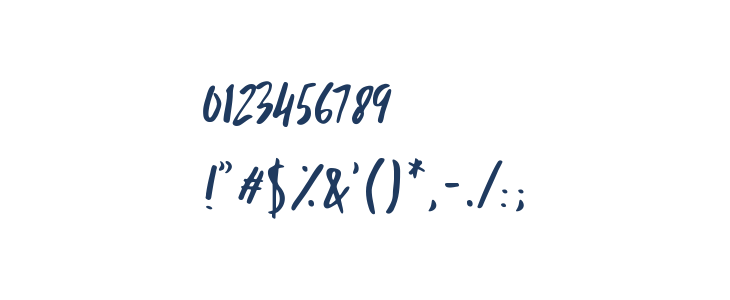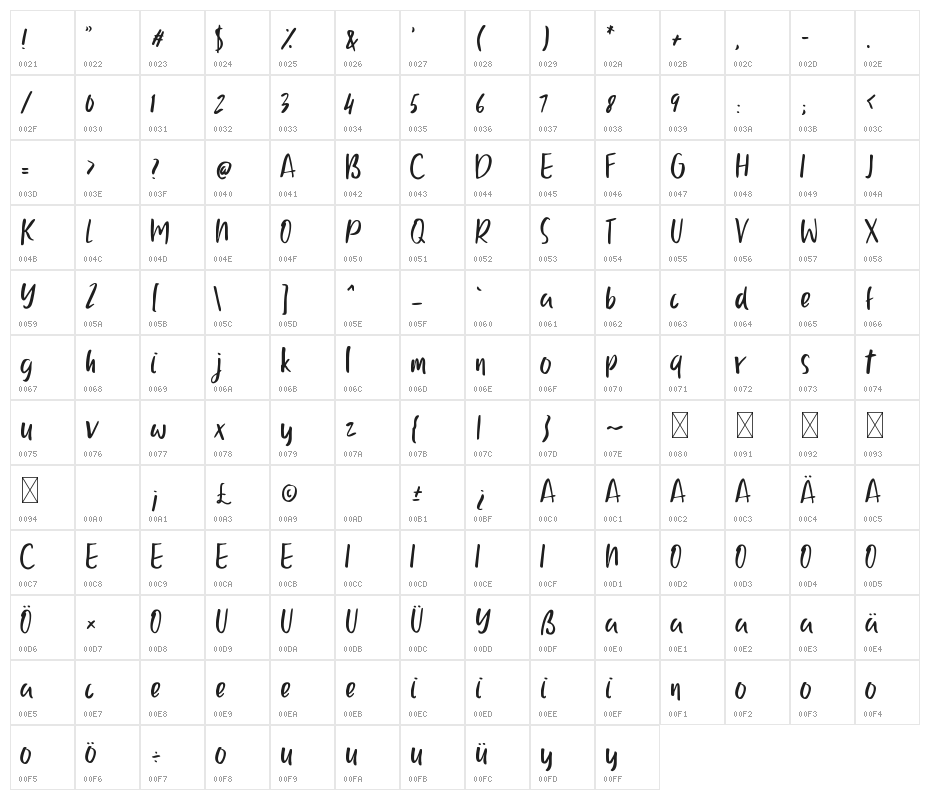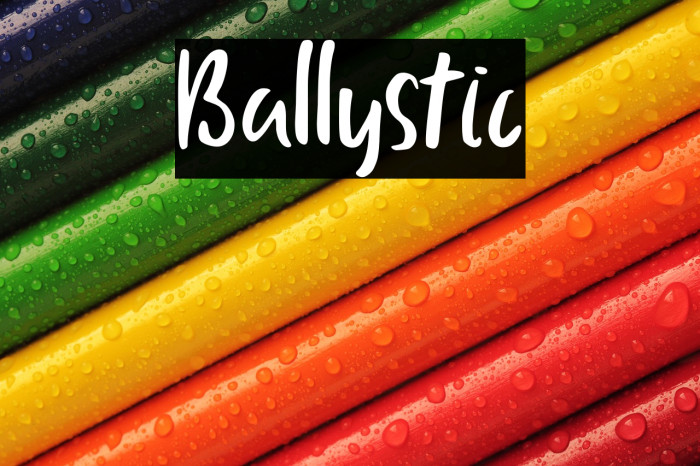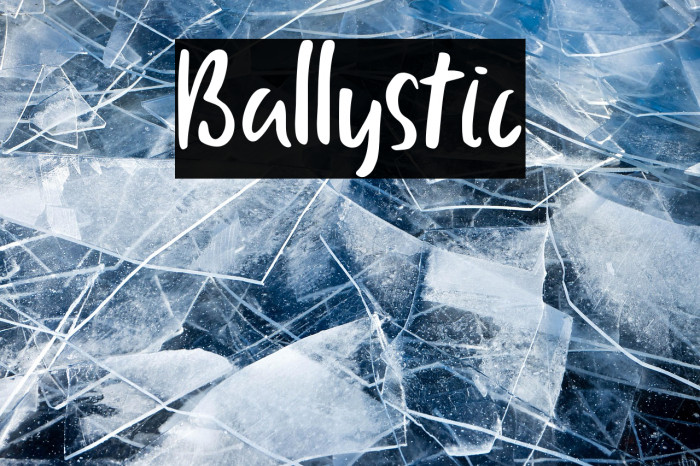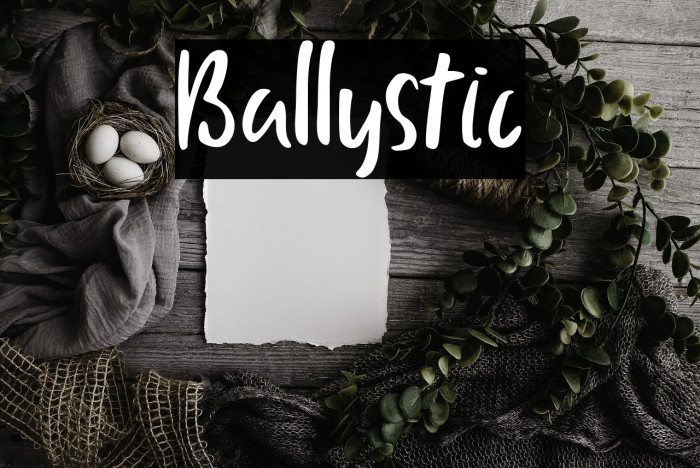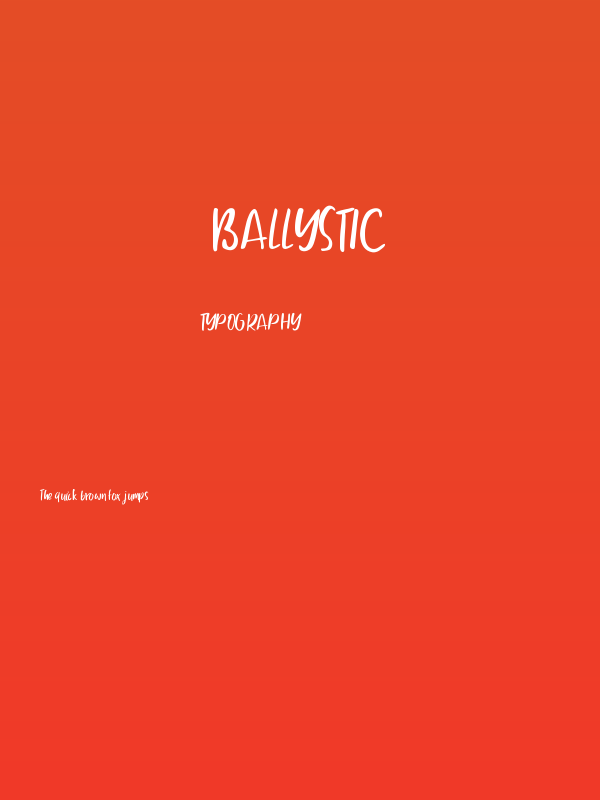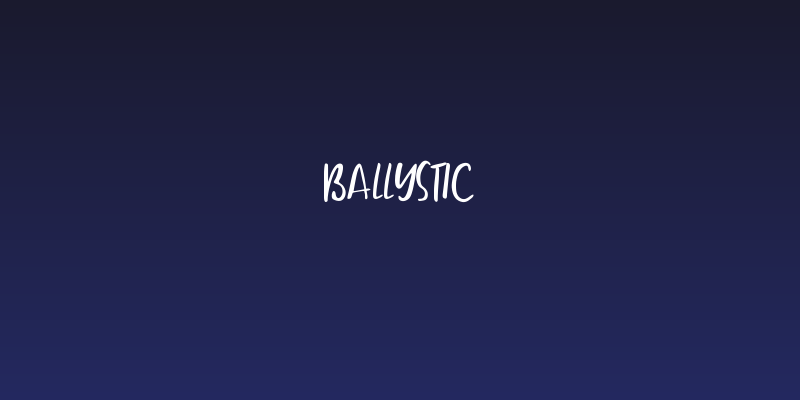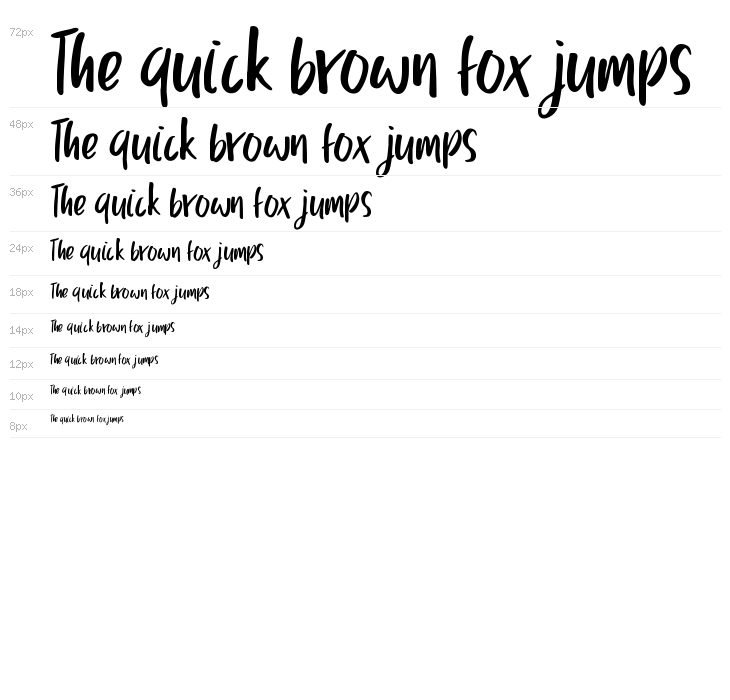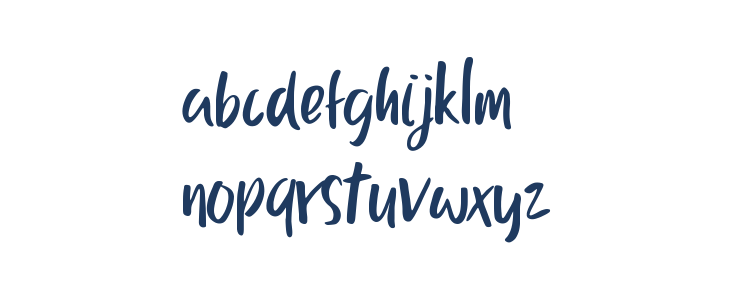
Ballystic Font
Ballystic Description
This font features a playful and energetic handwritten style, characterized by its bold and fluid strokes. The letters are slightly slanted, giving a dynamic and informal appearance. Each character is crafted with a consistent thickness, providing a cohesive look across the alphabet. The uppercase letters are tall and commanding, while the lowercase letters maintain a friendly and approachable feel. Numbers and special characters are designed with the same lively flair, making them stand out in any composition. The overall design is modern and versatile, suitable for a variety of creative applications.